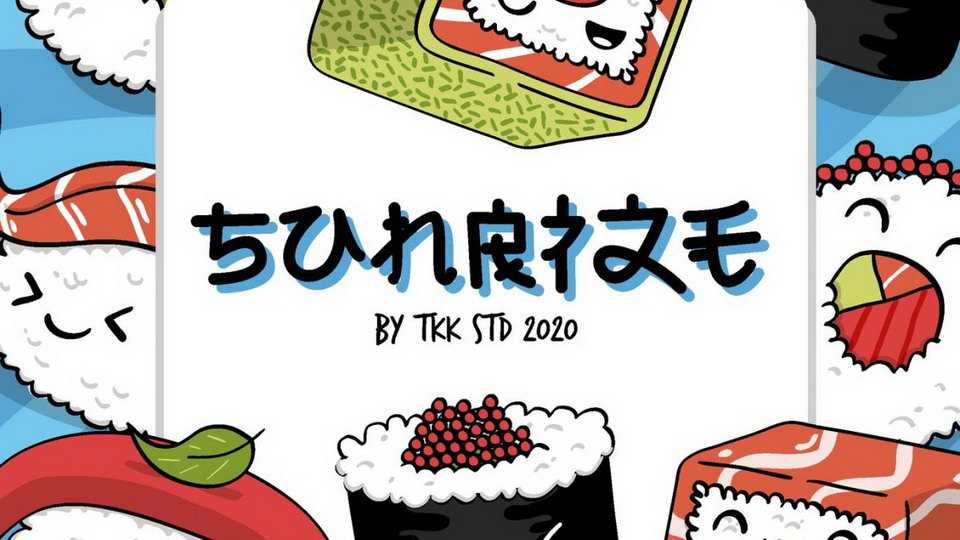
Download Sunrize font, a decorative typeface that took the shape from hiragana alphabet, and twist it to match the latin. The curve, the straight lines, the cross…depict Japanese spirit, which is fast, active, and cute in the same time.